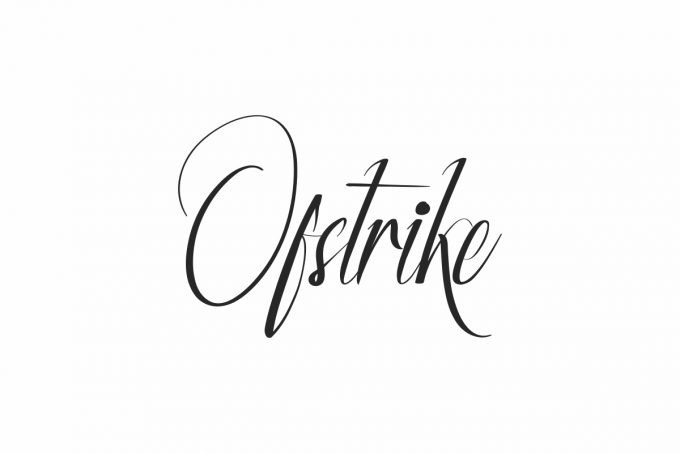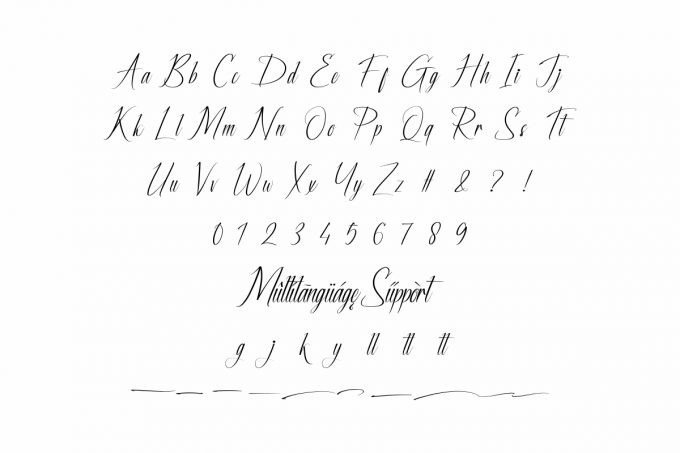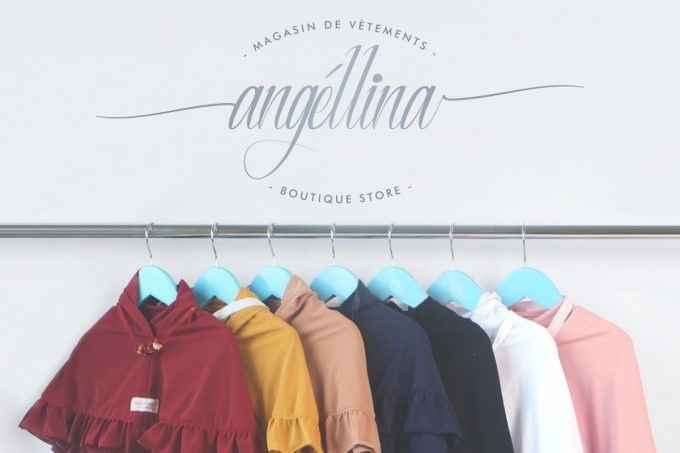
Ofstrike Calligraphy Font
The theme style of the font is elegant, luxury, glamour, gold, vintage, stylish, sophisticated and classic light brush style. The font will be match for this typeface: wedding, events, real estate, architect, law firm, florist, gardening, makeup artist, travel, hotel, musician etc